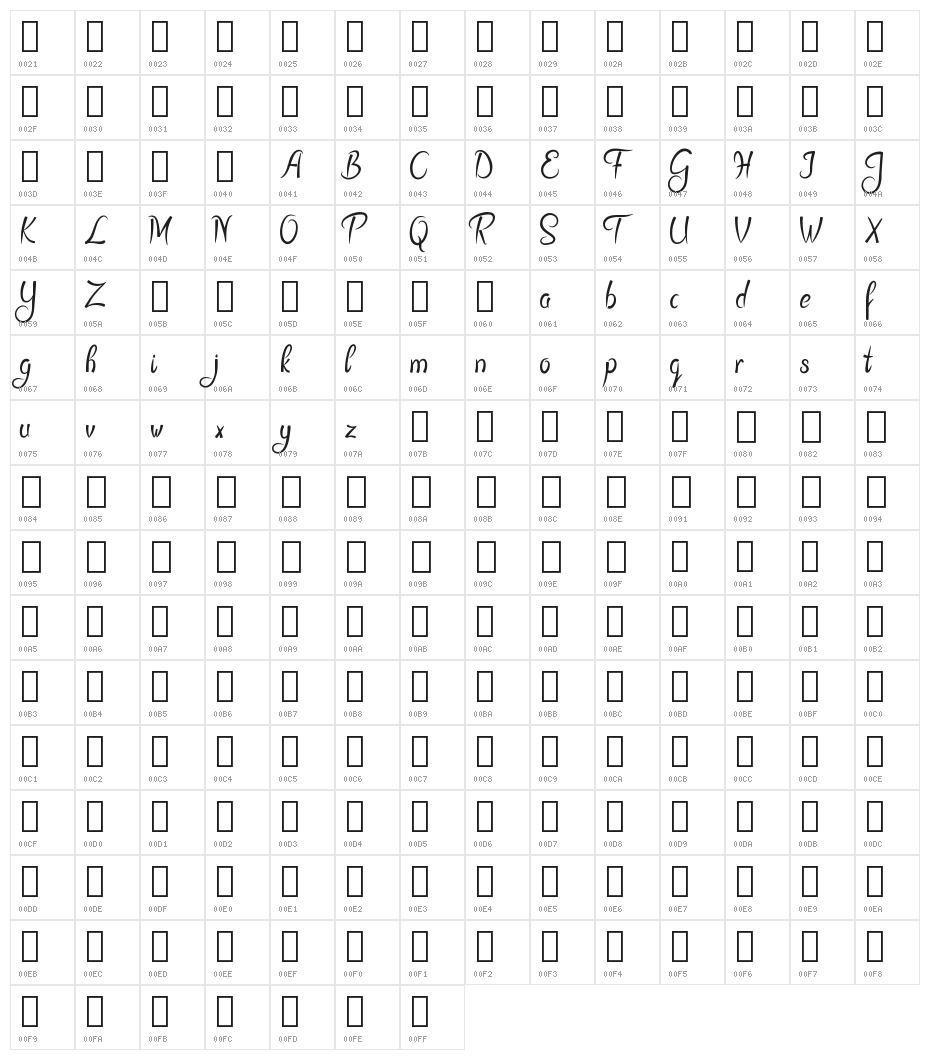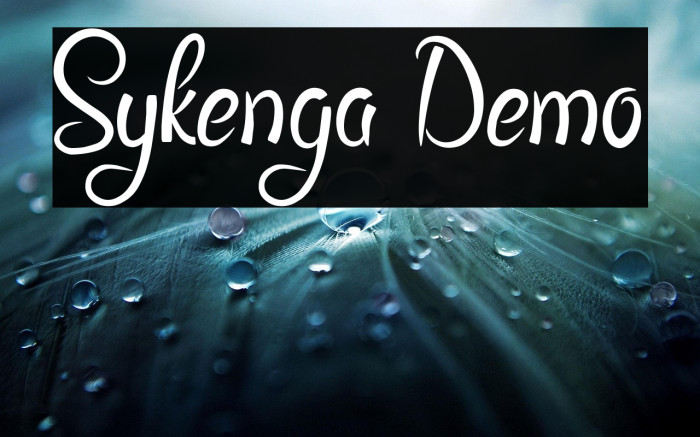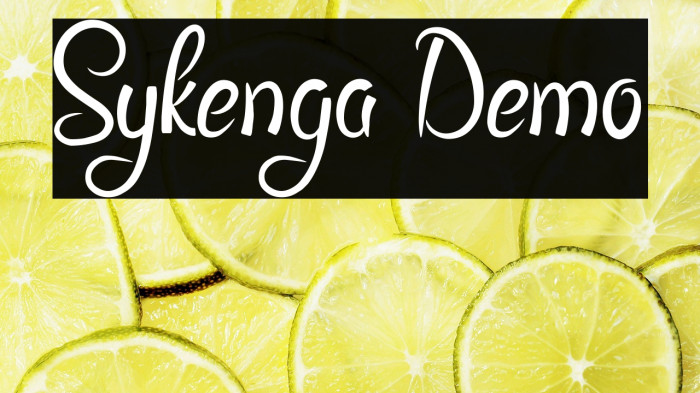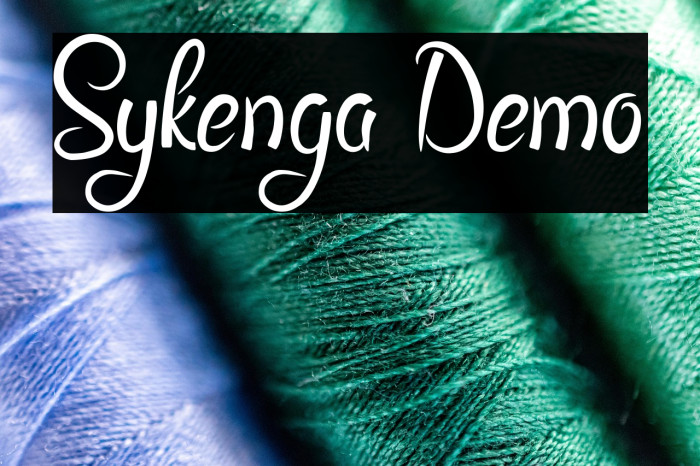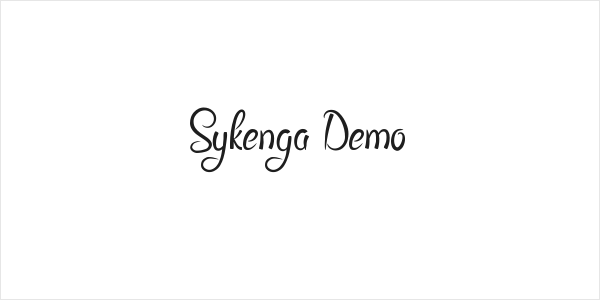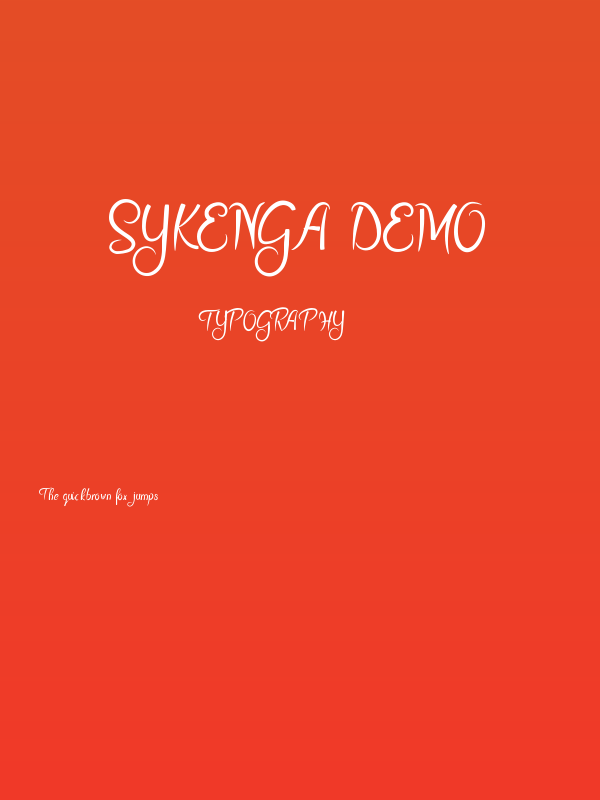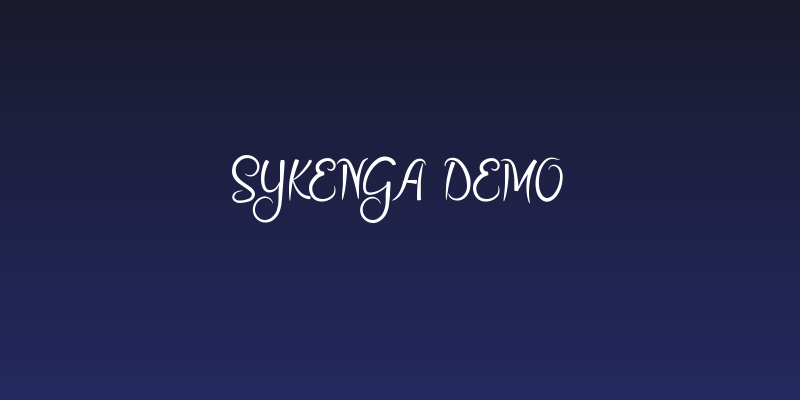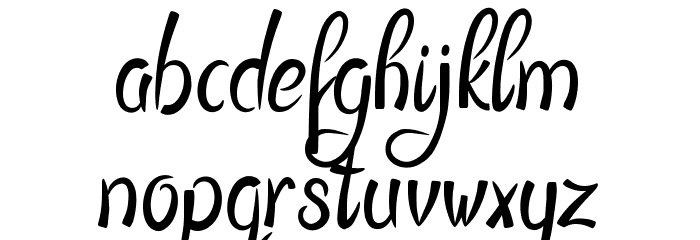
Sykenga Demo Font
Sykenga Demo Description
This font showcases a flowing, elegant script style with a modern twist. The uppercase letters are characterized by their sweeping curves and elongated forms, giving them a sense of movement and grace. The lowercase letters maintain a consistent style, with smooth connections and a slightly more compact form. The overall appearance is both sophisticated and approachable, making it suitable for a variety of design applications. The font's unique character is further enhanced by its balanced contrast between thick and thin strokes, adding to its visual appeal.
| Proposed Projects | Ideal for wedding invitations, branding, logo design, and elegant packaging. |